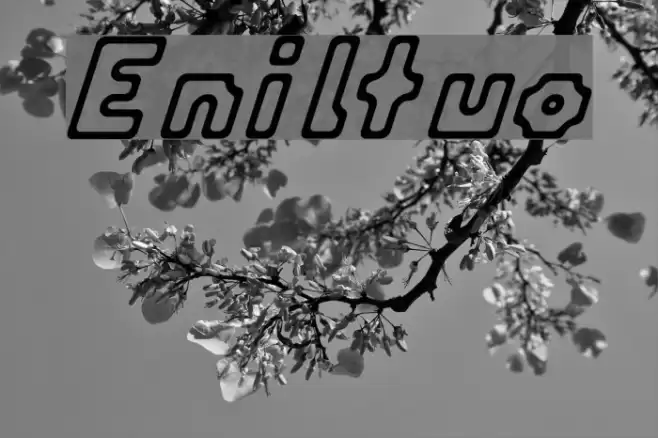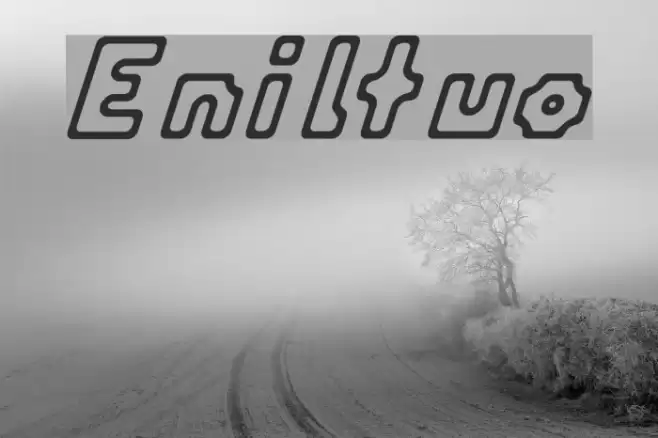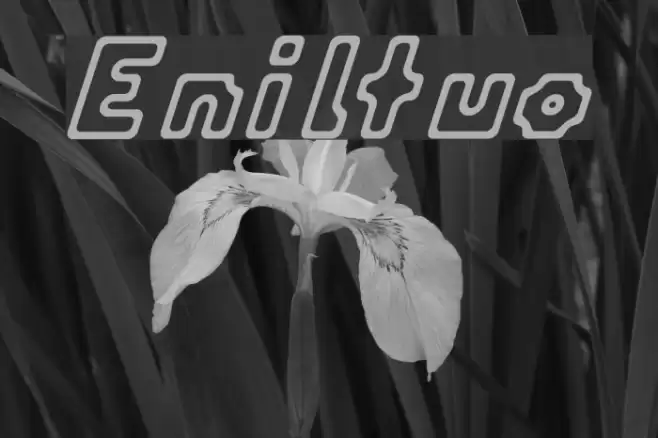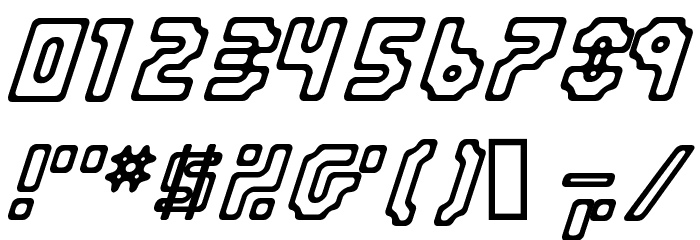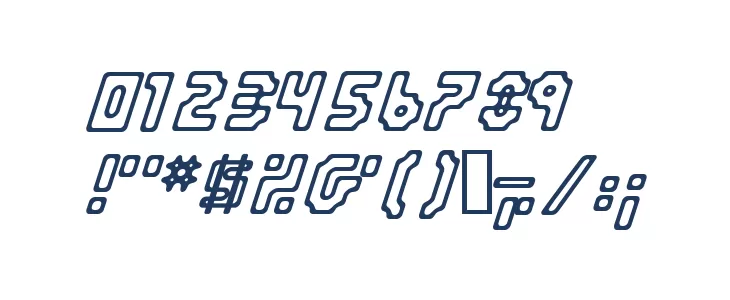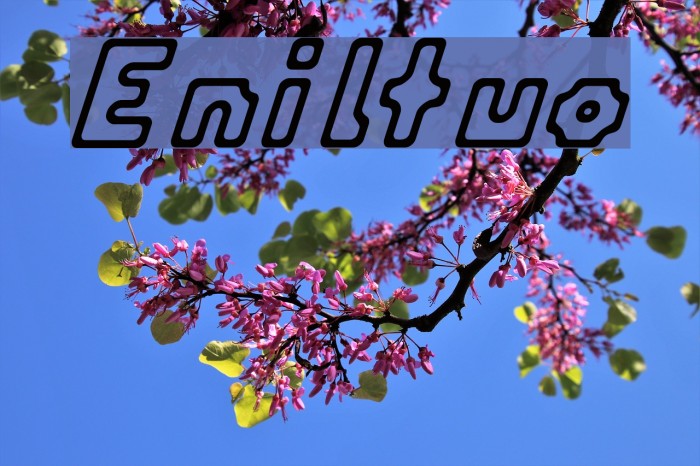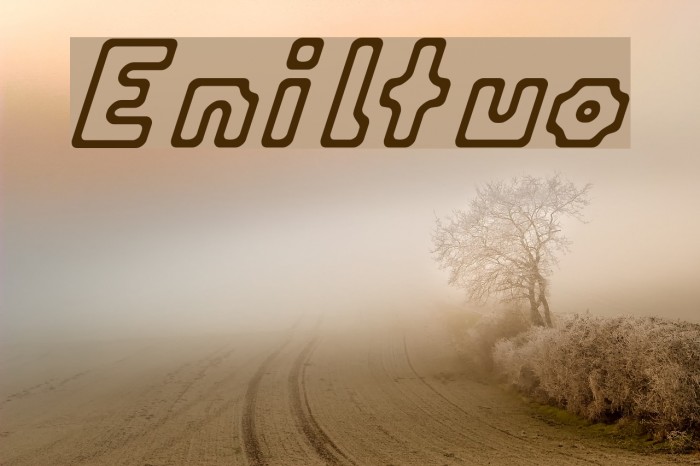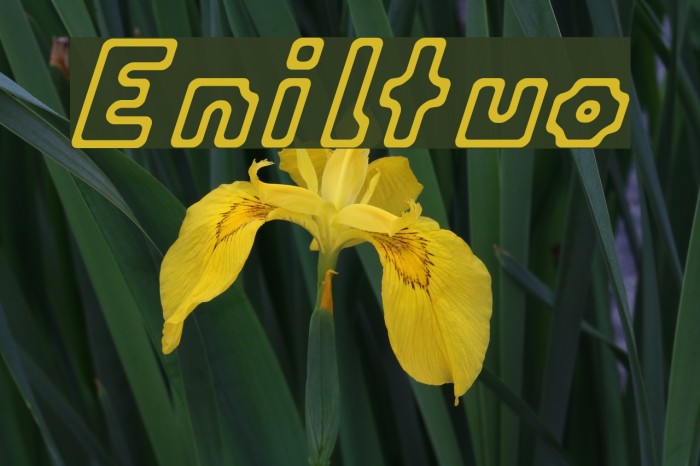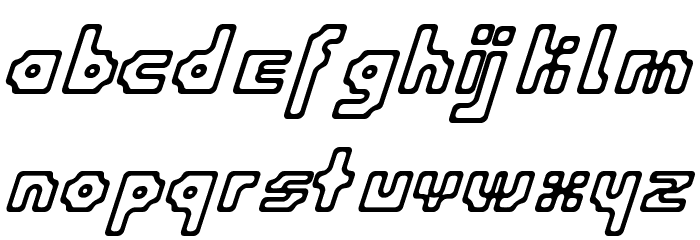
Eniltuo Font
Eniltuo Description
This font features a bold, geometric design with a hollow, outlined appearance. Each character is constructed with angular, block-like shapes, giving it a futuristic and digital aesthetic. The uppercase and lowercase letters maintain a consistent style, with the lowercase being slightly more compact. Numbers and special characters follow the same design principles, ensuring uniformity across all glyphs. The font's unique style makes it stand out, ideal for projects that require a modern and edgy look.
A bold, geometric font with a futuristic, outlined design from Outline fonts.